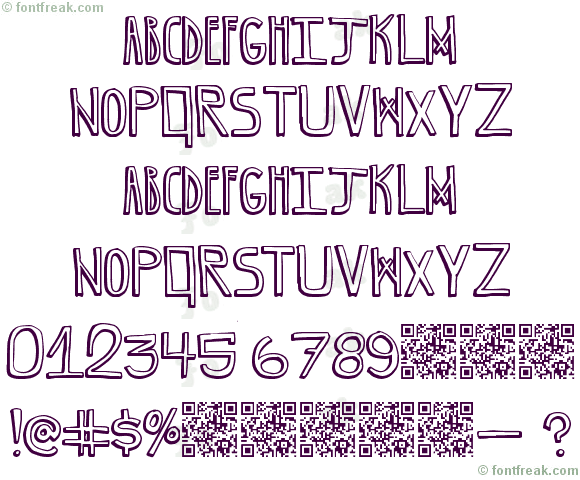
GrapeBlaster
About GrapeBlaster
GrapeBlaster, created by XEROGRAPHER FONTS in 2015, is a distinctive display font that captures attention with its bold, playful character. This font stands out in the decorative category, showcasing a unique, whimsical design that is both energetic and visually engaging. It features a consistent stroke weight, lending a sense of uniformity while maintaining a lively personality. The spacing between letters is carefully considered, allowing for legibility even in more complex compositions. The decorative elements of GrapeBlaster, including its rounded edges and exaggerated forms, evoke a sense of fun and creativity.
This font is ideal for a variety of specific use cases. It works wonderfully for vibrant wedding invitations, infusing a sense of joy and celebration into the design. Similarly, GrapeBlaster can elevate movie posters, giving them an eye-catching appeal that draws viewers in. Restaurant menus benefit from the font's playful nature, making the dining experience feel more inviting and memorable. Additionally, it can be used in branding for businesses targeting a younger audience, such as cafes or children's products. Graphic designers, small business owners, and content creators will find GrapeBlaster to be a versatile tool in their design arsenal.
What makes GrapeBlaster truly stand out is its ability to convey a sense of personality and charm while remaining functional in a variety of applications. The font’s playful nature and engaging visual style make it a perfect choice for projects that aim to capture attention and evoke emotion. For those looking to add a touch of whimsy to their designs, the GrapeBlaster font free download offers an accessible opportunity to explore its unique character and versatility.